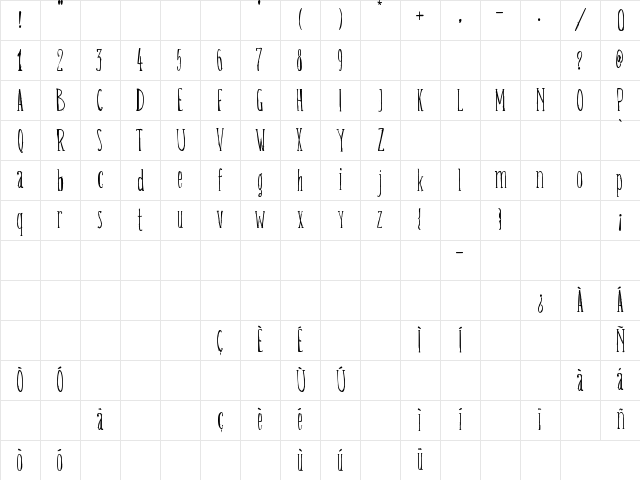
Belisa plumilla manual Regular
Design Context for Belisa plumilla manual
Belisa plumilla manual is a composed and adaptable typeface that performs quietly and consistently across a wide range of design contexts.